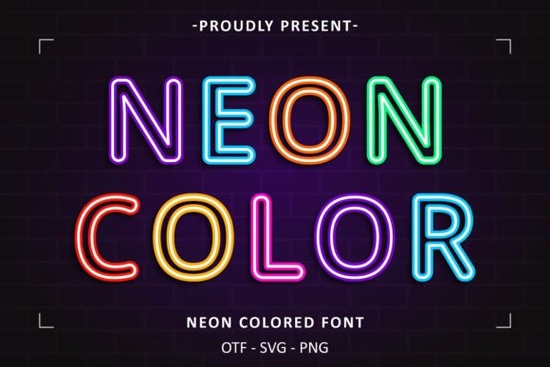
Looking for a typeface that brings the electric glow of city nightlife into your work? The Neon Colored Font is a colorful display font inspired by the vivid look of neon signs. Whether you're creating social media graphics, print-on-demand designs, or branding materials, this typeface adds an eye-catching, modern feel to any layout. The bright color treatment across each letterform makes it stand out from typical one-tone decorative fonts.
What makes this neon-inspired font different from other display fonts?
Most neon-style fonts use a single glowing color. This one uses multiple vibrant hues inside each character, which creates a look closer to real neon tubing think warm pinks blending into cool teals, or bright orange fading into electric blue. It's the kind of aesthetic you'd spot on a late-night cocktail bar sign or a retro arcade logo.
The letterforms are clean and well-balanced, so the font stays readable at different sizes. That's not always the case with highly decorative typefaces. You can browse more options in our colorful display font collection to compare styles and find the right match for your project.
Who is this font a good fit for?
This typeface works well for a variety of creative needs. Here's a quick look at who might benefit from adding it to their font library:
- Print-on-demand sellers Use it on t-shirts, mugs, tote bags, and phone cases for a trendy neon aesthetic that sells
- Social media managers Create scroll-stopping Instagram stories, YouTube thumbnails, and TikTok covers
- Small business owners Design event flyers, restaurant menus, or party invitations with personality
- Crafters and hobbyists Add a pop of color to scrapbook pages, stickers, or printable wall art
- Graphic designers Pair it with dark backgrounds for album covers, posters, or branding kits
What types of projects pair well with neon typography?
Neon fonts look their best on dark or black backgrounds. That contrast is what gives the letters their glow effect and makes the colors pop. Here are some specific project ideas that work especially well:
- Event posters Concert nights, DJ sets, glow-themed parties
- Apparel designs Streetwear graphics, festival merchandise, gym wear
- Digital content Twitch overlays, podcast covers, blog post headers
- Home décor prints Neon-style motivational quotes or song lyrics
- Branding materials Logos for gaming channels, nightlife venues, or creative studios
How does it compare to other colorful fonts?
There are plenty of colorful typefaces available, but not all of them capture the authentic neon feel. Some lean too cartoonish, while others look flat without careful color handling. The Neon Colored Font sits in a practical middle ground it's bold and playful, but polished enough for professional projects.
Practical tips for working with neon-style fonts
- Stick to dark backgrounds black, deep navy, or dark purple gives the best results
- Use only one neon font per layout so it doesn't compete with other elements
- Add a subtle outer glow effect in your design software for extra realism
- Reserve it for headlines, titles, and short phrases rather than body text
- Always preview your design in both screen and print formats before finalizing